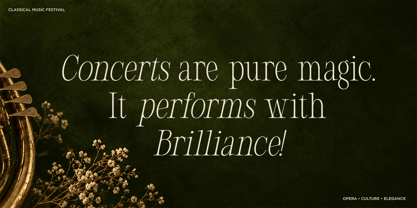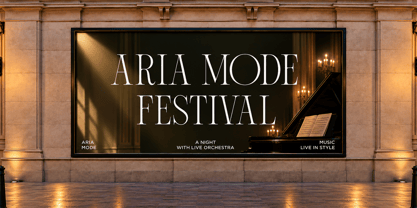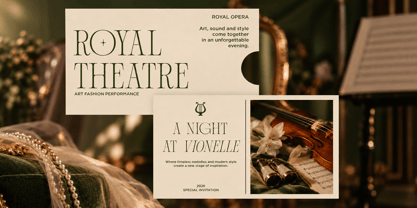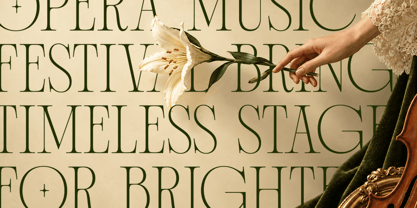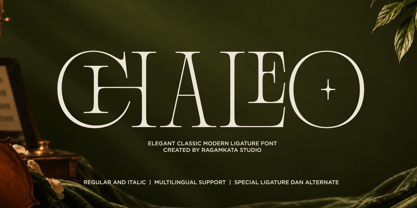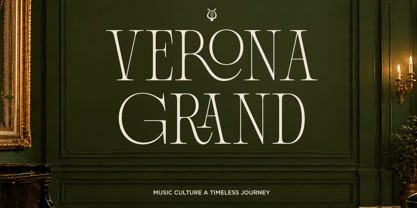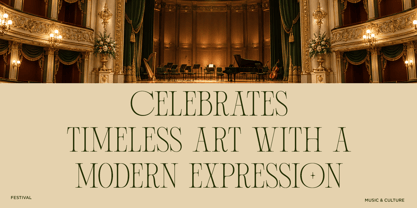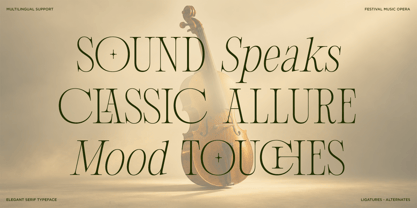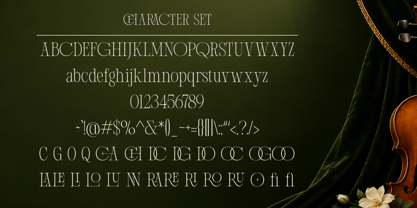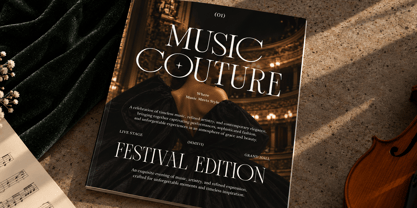
Chaleo
by RagamKata
The Chaleo Font Family was designed by Yogiswhara Dio Prakoso Riadi and published by RagamKata. Chaleo contains 2 styles and family package options. More about this family
Chaleo is a stylish ligature serif font designed to bring elegance, sophistication, and a distinctive editorial character to your creative projects. Featuring refined serif shapes, graceful letterforms, and unique ligatures, Chaleo is perfect for luxury branding, fashion editorials, magazines, posters, invitations, packaging, logos, headlines, and sophisticated typography designs.
Its elegant display style works beautifully for both classic and contemporary aesthetics, making it an excellent choice for designers looking to create memorable visual identities, premium layouts, and timeless compositions. Use Chaleo for branding, beauty products, fashion campaigns, wedding stationery, music events, editorial designs, and other projects that require a refined and luxurious typographic presence.
Chaleo is ideal for designers who want a stylish serif typeface with a sophisticated, artistic, and high-end appearance.
Regular and Italic
Stylistic Ligatures
Special Alternates
Uppercase and Lowercase
Number, Symbol, and Punctuation
Multilingual Support
Designers: Yogiswhara Dio Prakoso Riadi
Foundry: RagamKata